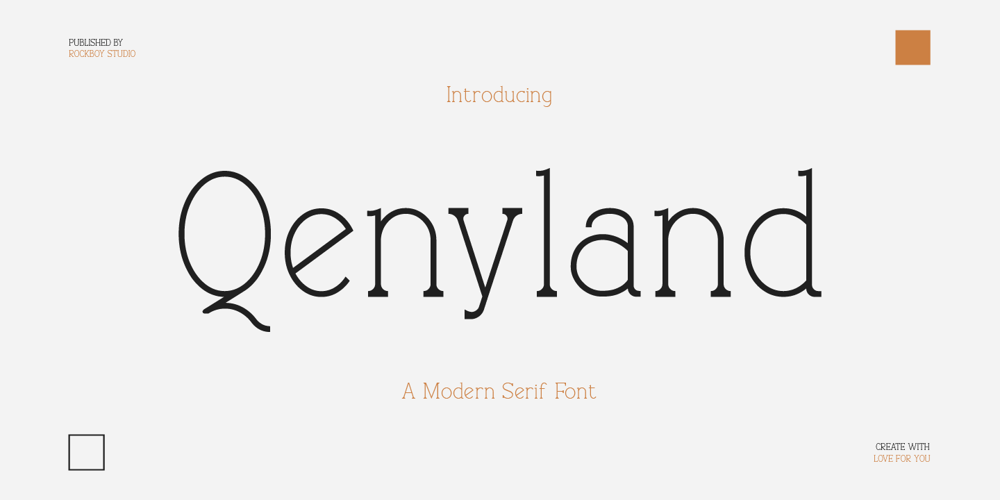
Qenyland Font Family was designed by Hayinah and published by Rockboys Studio. Qenyland contains 1 styles and family package options. Qenyland is a modern serif font that blends elegance with a contemporary aesthetic. It typically features sharp, clean lines, and slightly elongated serifs, giving it a sophisticated and refined appearance. The font is well-suited for use in editorial design, branding, and high-end fashion layouts due to its stylish and professional look.